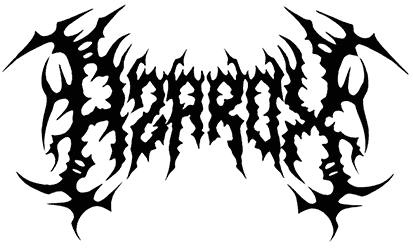
Azarox Font
The sharp and harsh visual of this death metal font will provide your design with a captivating vibe. Letters of this gothic font are adorned with a cool face, and you can use them to design a death metal album, but the numbers and punctuation marks of this item are simple. Set the Azarox font for your new project and hook lots of people.